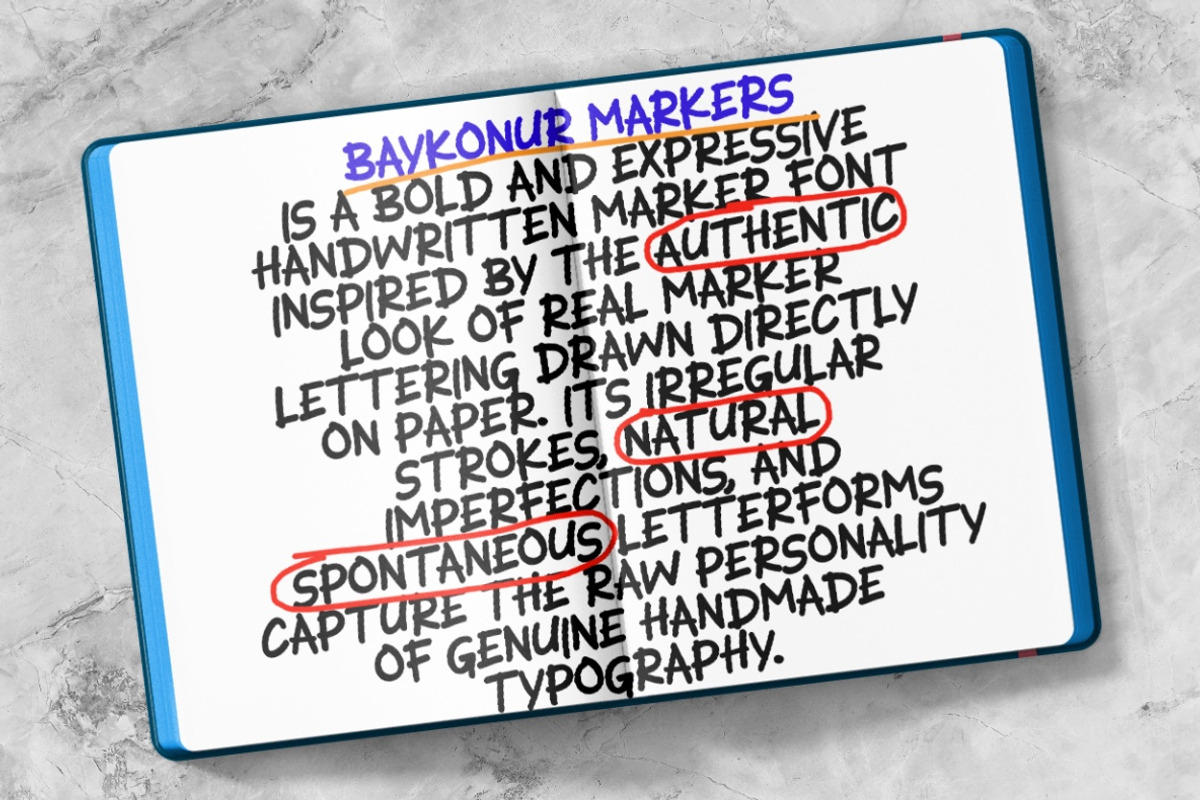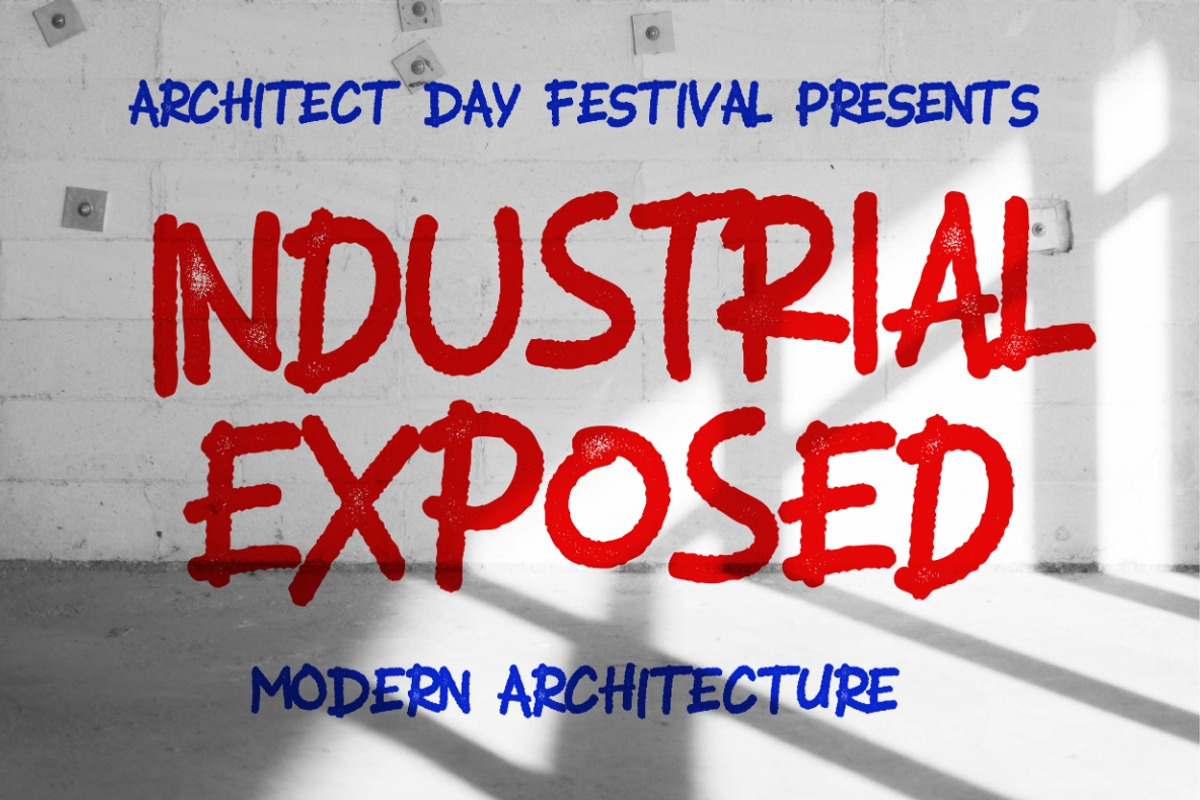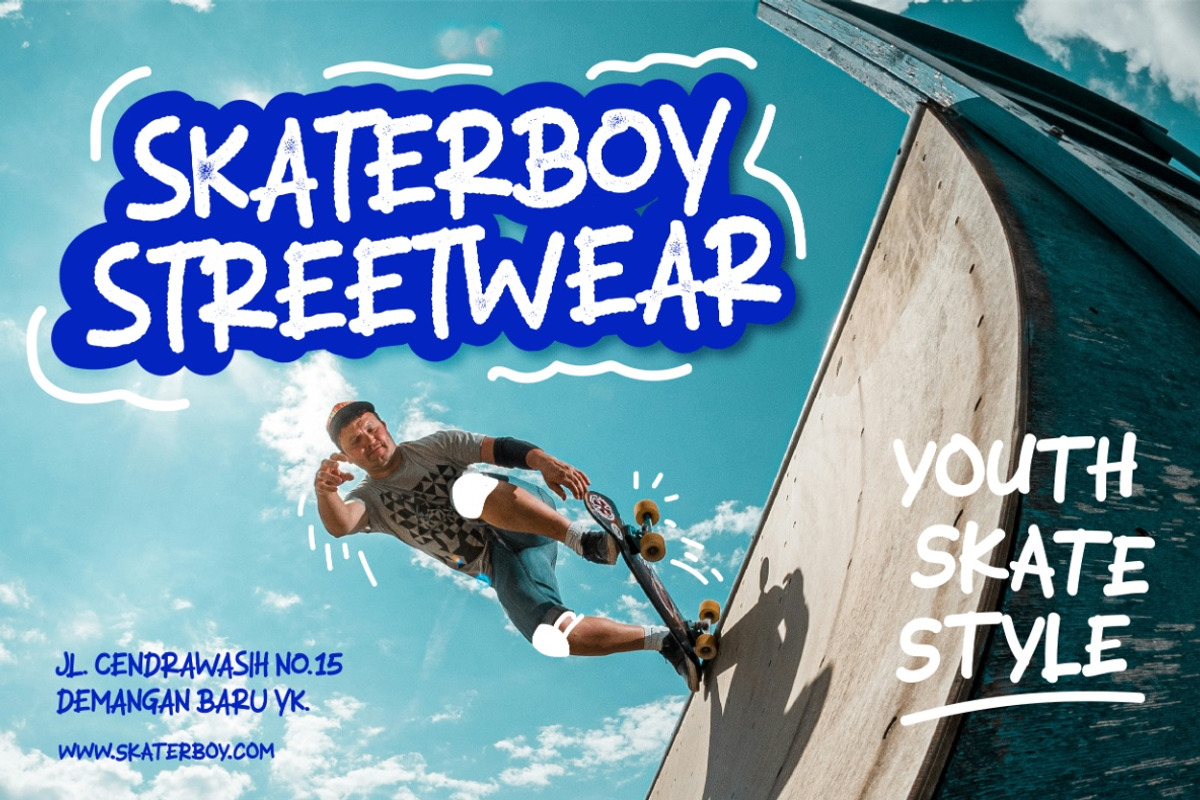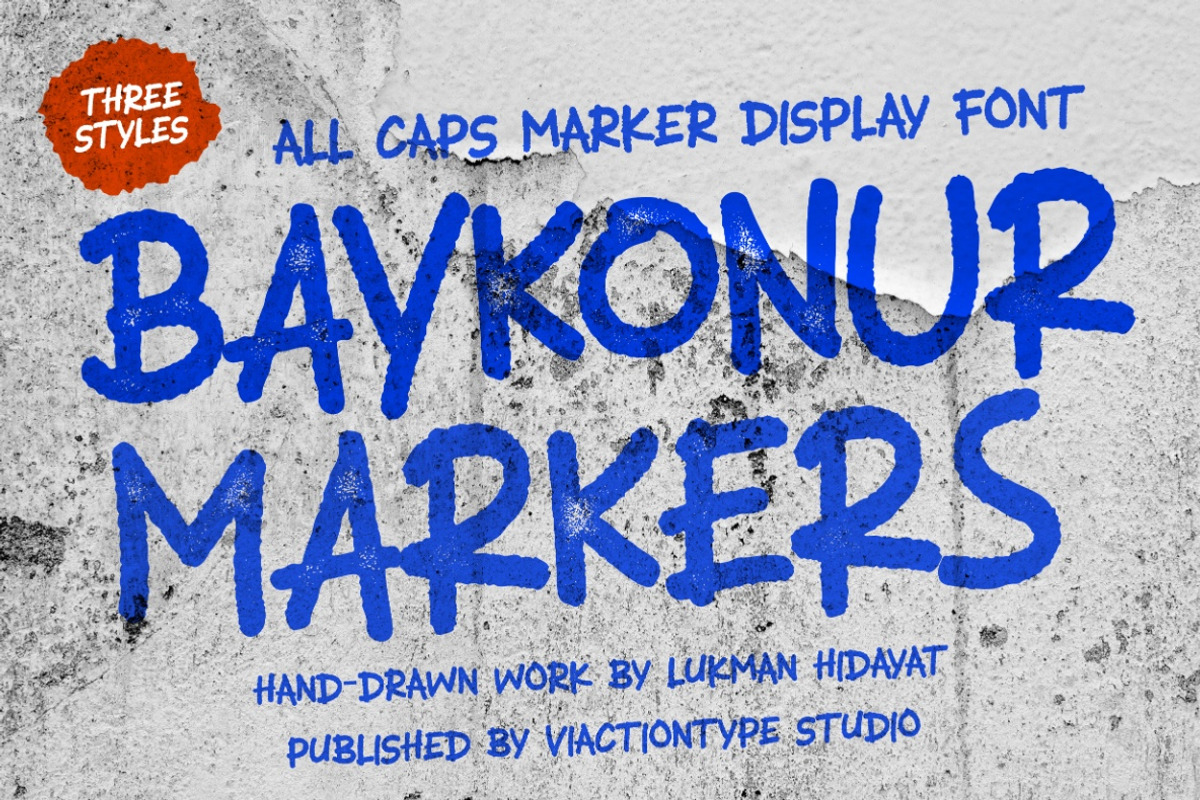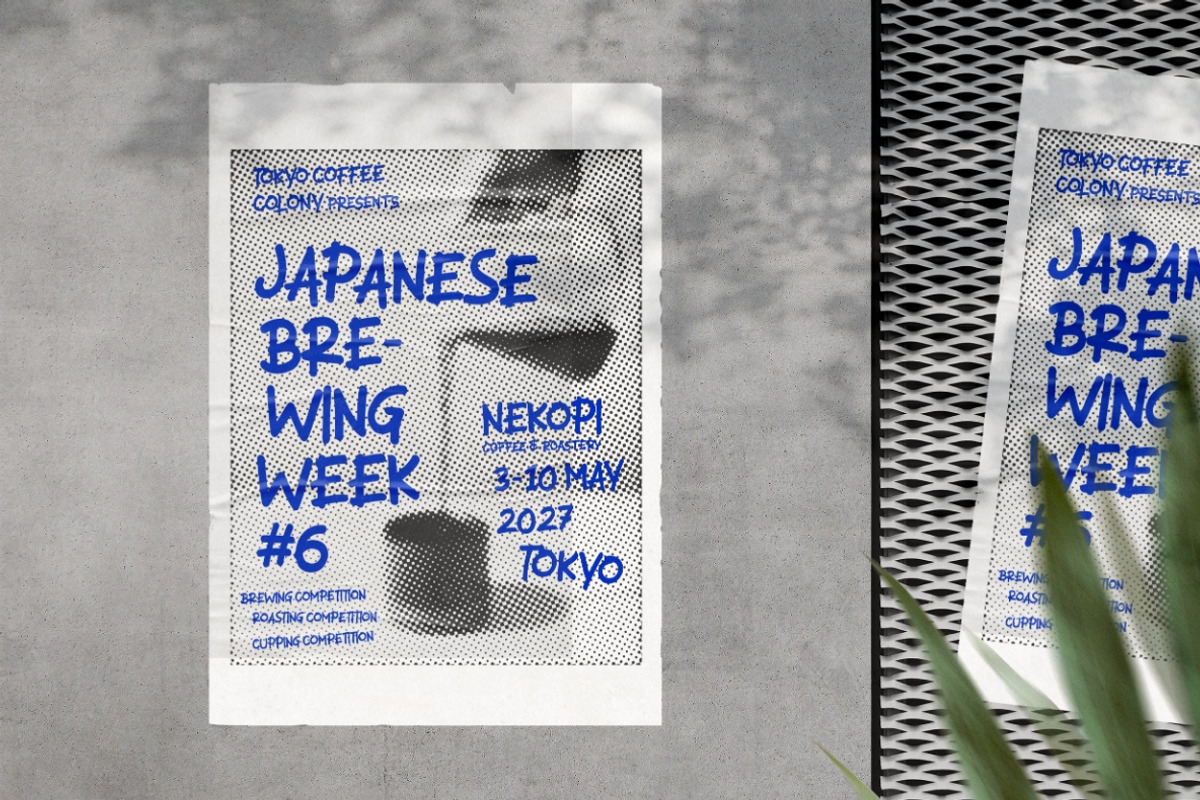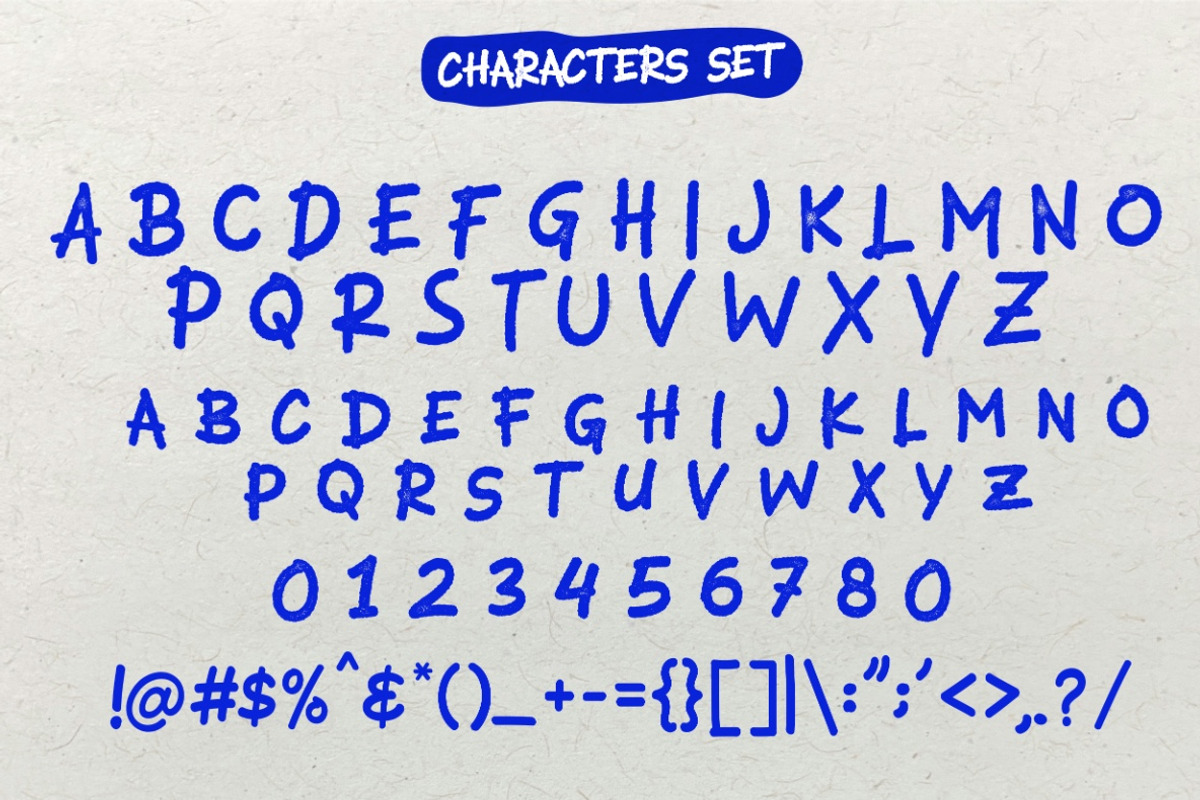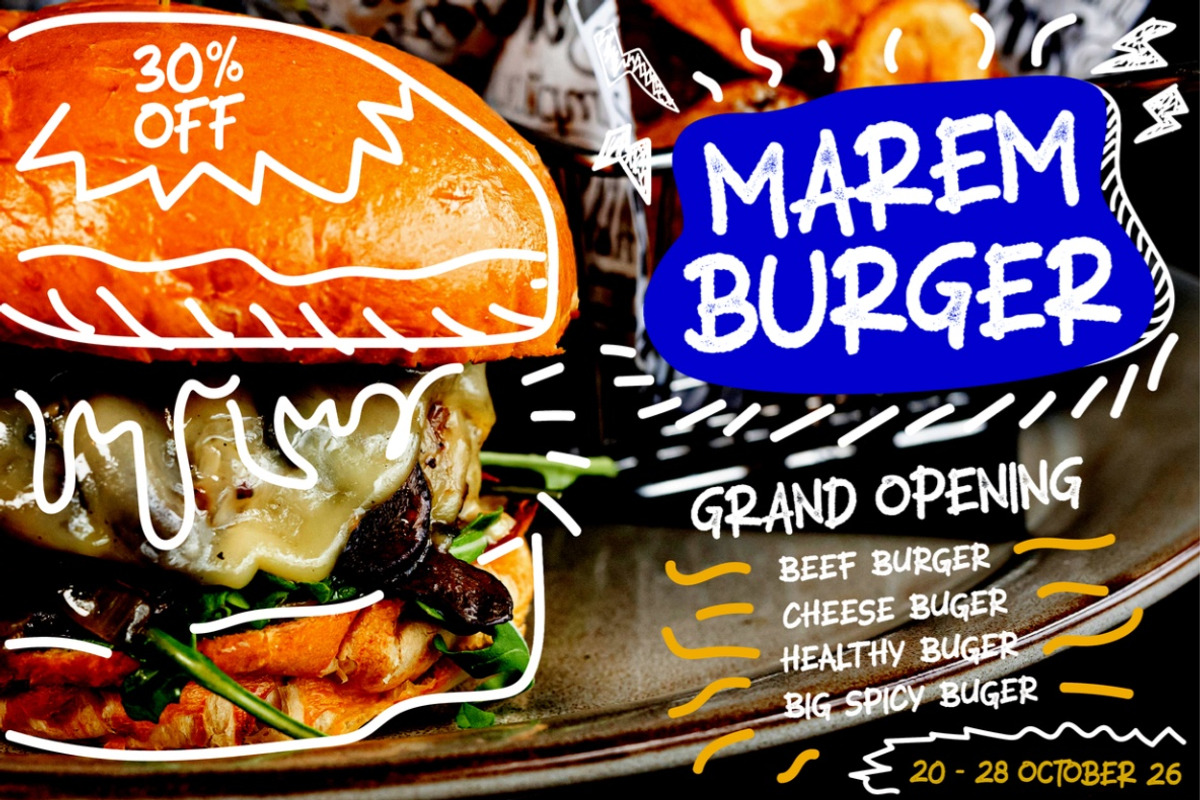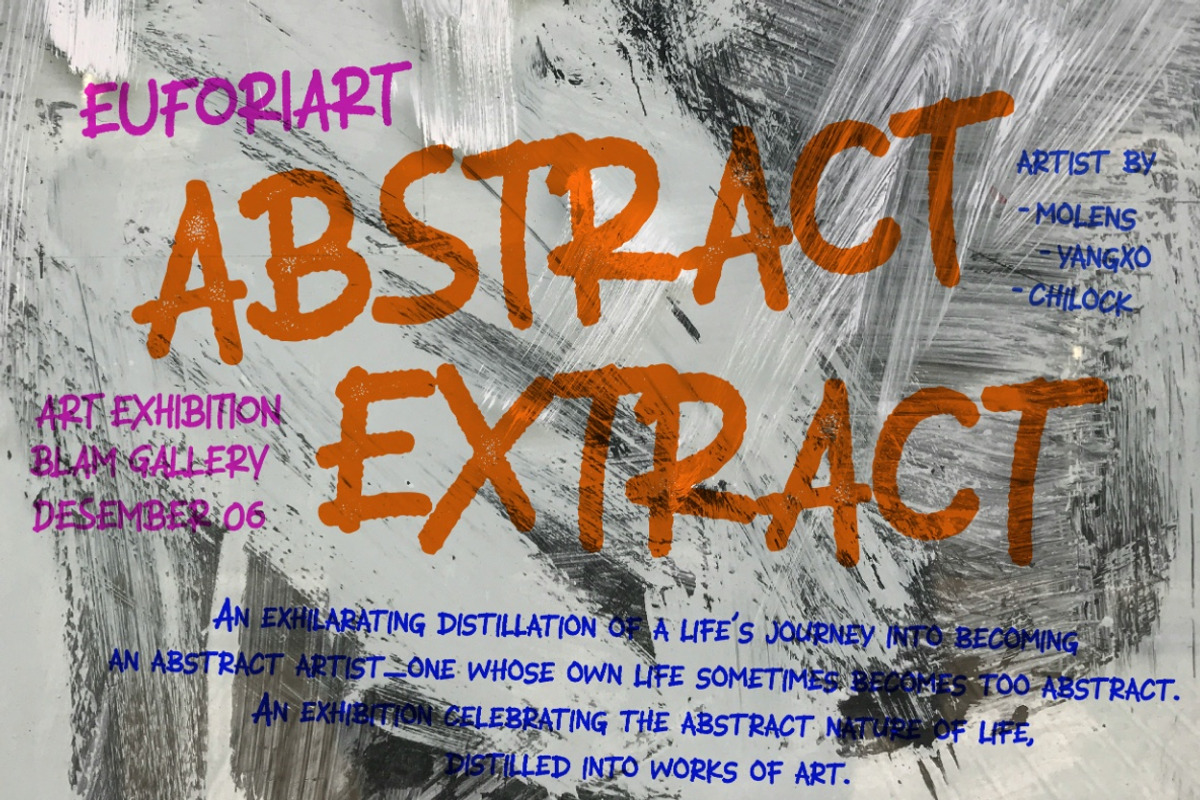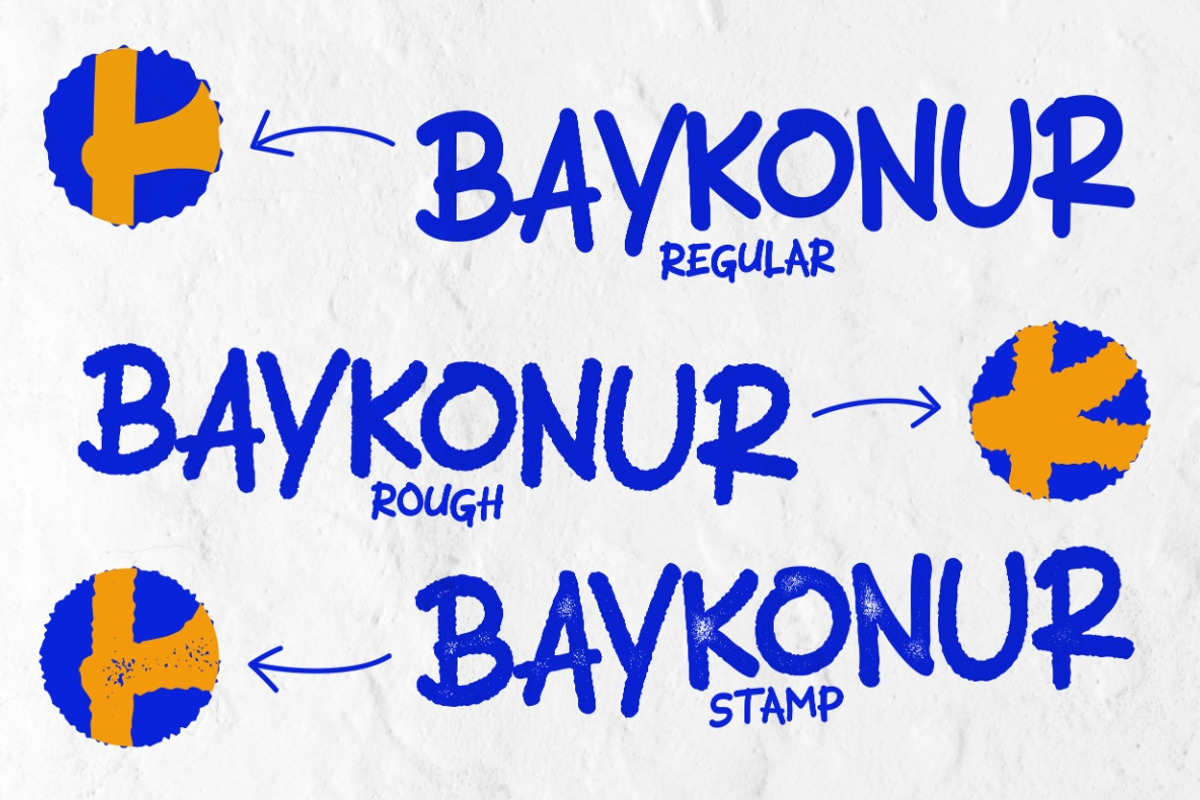
VT Baykonur - Markers Font
Baykonur Markers is a bold and expressive handwritten marker font inspired by the authentic look of real marker lettering drawn directly on paper. Its irregular strokes, natural imperfections, and spontaneous letterforms capture the raw personality of genuine handmade typography.
Instead of looking perfectly digital, Baykonur Markers keeps the organic imperfections of hand-drawn lettering — uneven shapes, natural stroke variations, and a casual marker texture that makes every word feel personal and authentic.
Baykonur Markers comes in 3 distinctive styles: Regular, Rough & Stamp, giving you plenty of creative possibilities, from clean handwritten lettering to distressed and textured marker effects.
3 Styles Included
Regular — Natural handwritten marker strokes with an authentic, casual feel.
Rough — A more raw and distressed version with rough edges and stronger handmade character.
Stamp — A bold, textured style inspired by imperfect ink and vintage rubber stamp impressions.
Baykonur Markers is perfect for logos, branding, packaging, posters, apparel, stickers, labels, badges, product designs, social media graphics, quotes, headlines, album artwork, invitations, and handmade-inspired designs.
Its authentic marker aesthetic works especially well for projects that need a personal, creative, bold, and handcrafted feel.
If you're looking for a handwritten marker font that doesn't feel overly polished or artificial, Baykonur Markers brings the imperfect beauty of real handwriting straight into your digital designs.
Write it rough. Keep it real. Make it handmade.